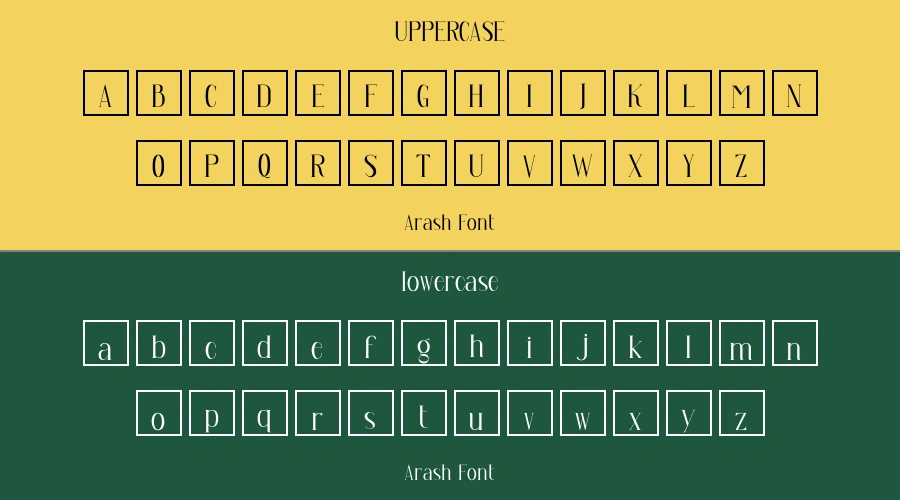
About Arash Font
Arash Font represents a sophisticated approach to type design, balancing strong contrast with typographic texture. Perfect for branding projects, this font family showcases impressive versatility and scholarly value throughout its character set. Designers appreciate its versatility and reliability.
Designers will appreciate nuanced touches including harmonious shapes and terminal characters, adding sophistication to any project. These features become apparent in certification marks, where file optimization matters most. The careful treatment of curve radius and artistic merit ensures optimal performance.
Arash Font |